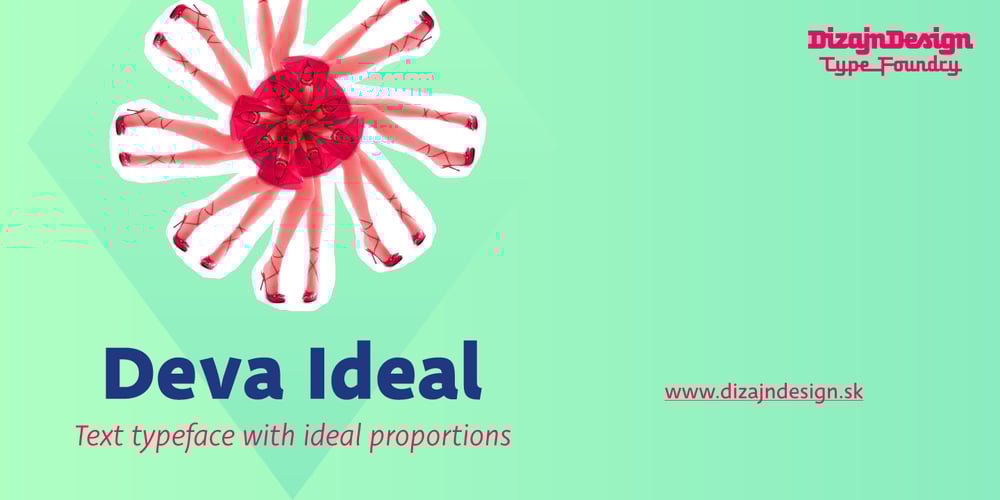
Deva Ideal Font Family was designed by Ján Filípek and published by DizajnDesign. Deva Ideal contains 10 styles and family package options. Deva Ideal was inspired by women’s beauty. It didn’t come only from the desire to create a new typeface. It also seeks to materialize beauty in a visual form. Instead of imitating the shapes of the female body or other formal attributes, Deva Ideal is an abstract expression of the women’s beauty. The unique character of the typeface is achieved by the use of soft, almost invisibly bent strokes, since one of the priorities of the typeface is not to disturb the eye of the reader with odd design details. Deva Ideal excels in her cold beauty and shows her sex appeal. The soft curves present in Deva Ideal differ from the masculine and technical shapes used in most contemporary typefaces. Deva Ideal has ideal proportions (90 / 60 / 90) and its shapes are essential and simple. Because of this, it is ideal for setting text in all kinds of printed matter: catalogues, books and magazines. The letter forms are wide and open, so text can be set in small sizes and thus space can be saved, while keeping the same degree of readability. The author wishes to acknowledge František Štorm for his invaluable opinions. Also to Palo Bálik and Peter Bilak for their contributions. I am specially grateful to all the devas (archaic expression for beautiful young girl), who inspired me to design this typeface. This is dedicated to Janka Ráczová, Jarka Krajčiová, Mariana Felgueiras and obviously to Martinka Filípková! Every use of Deva Ideal is a little homage to these interesting women.